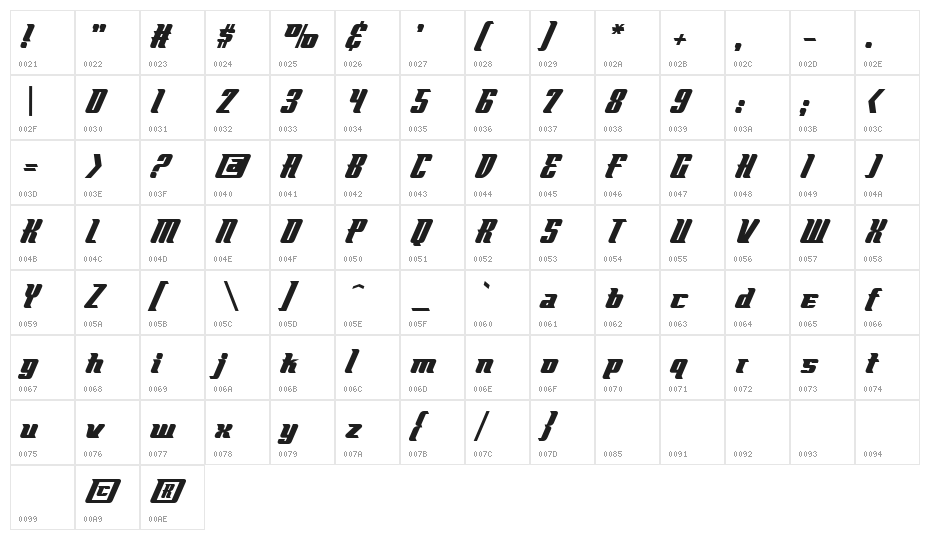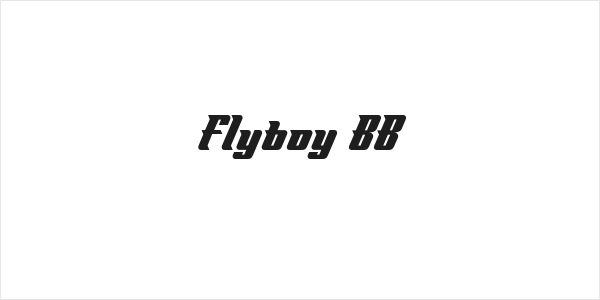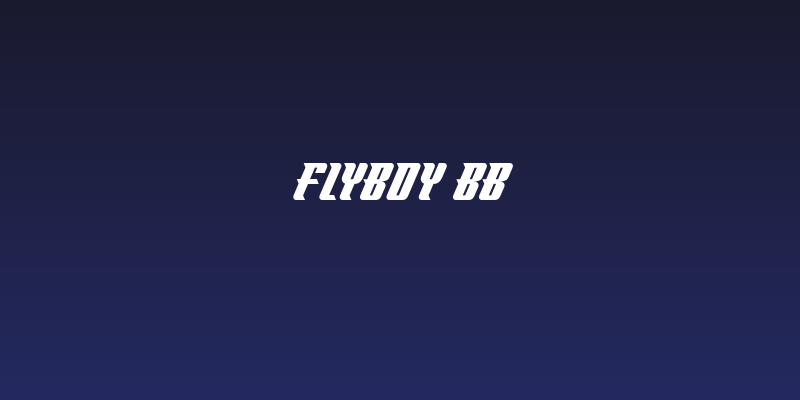
Flyboy BB Font
Flyboy BB Description
This font features a bold, dynamic style with a strong, angular design that conveys a sense of motion and energy. The characters are slightly slanted, giving them a forward-leaning appearance that enhances the feeling of speed and movement. The strokes are thick and consistent, providing a robust and impactful presence on the page. The uppercase and lowercase letters maintain a uniform style, while the numerals and special characters integrate seamlessly with the overall design. This font is ideal for projects that require a bold and assertive typeface.
| Proposed Projects | Ideal for sports branding, action movie posters, automotive advertisements, and dynamic logo designs. |